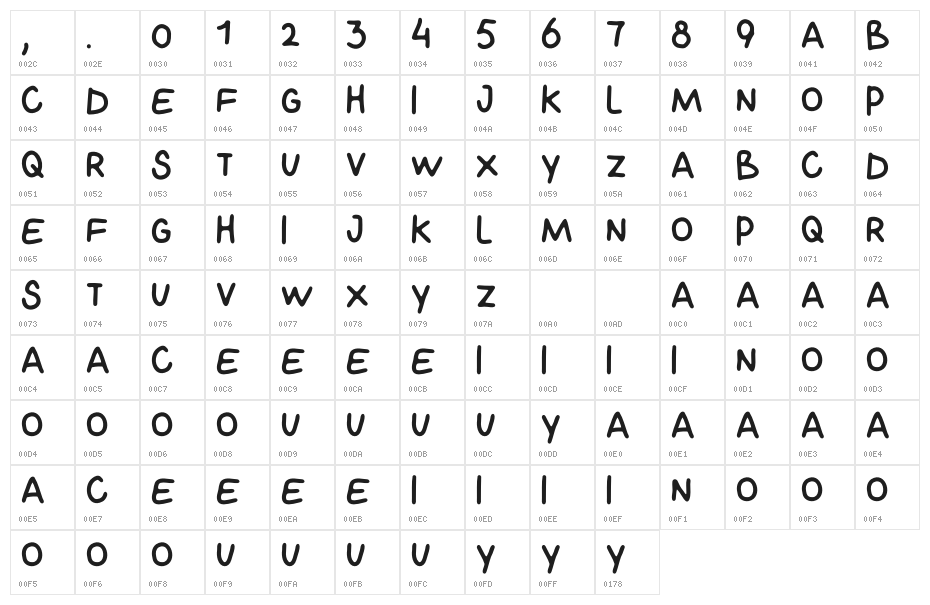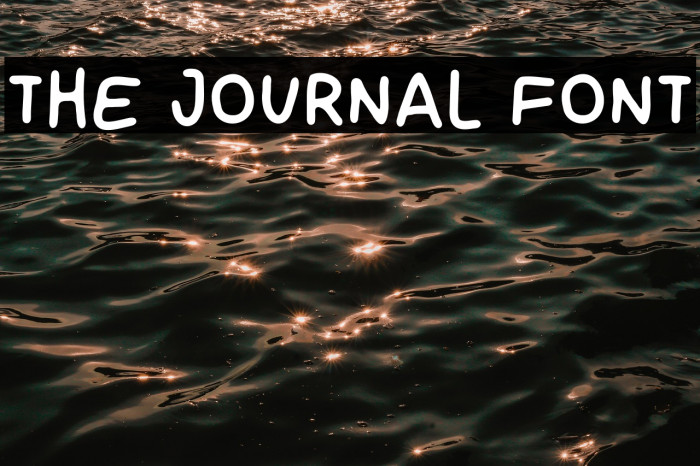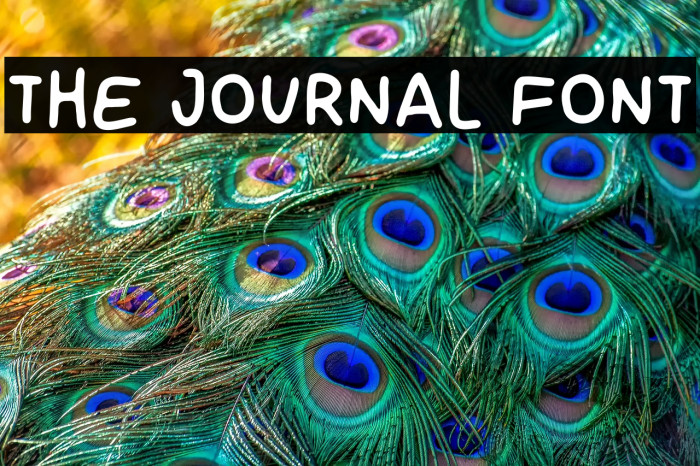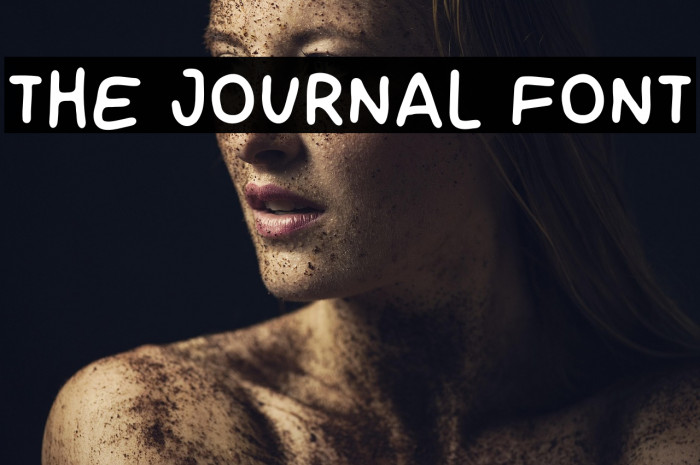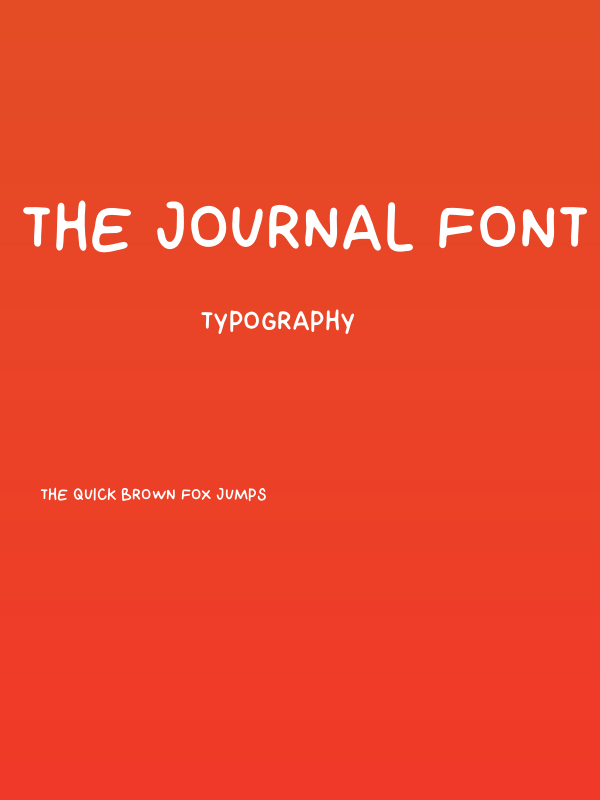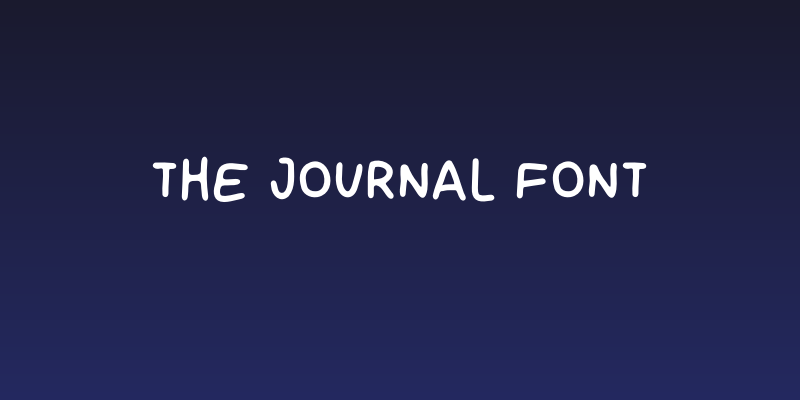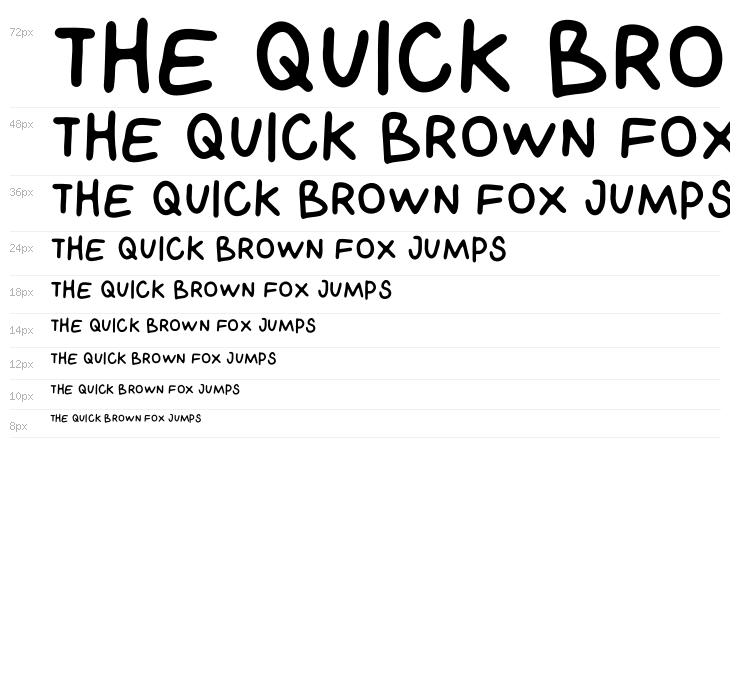
THE JOURNAL FONT Font
THE JOURNAL FONT Description
A playful, handwritten font with rounded edges and a casual style, suitable for informal contexts.
| Use Case | Headlines, Informal text |
| Proposed Projects | Greeting cards, children's books, casual invitations. |